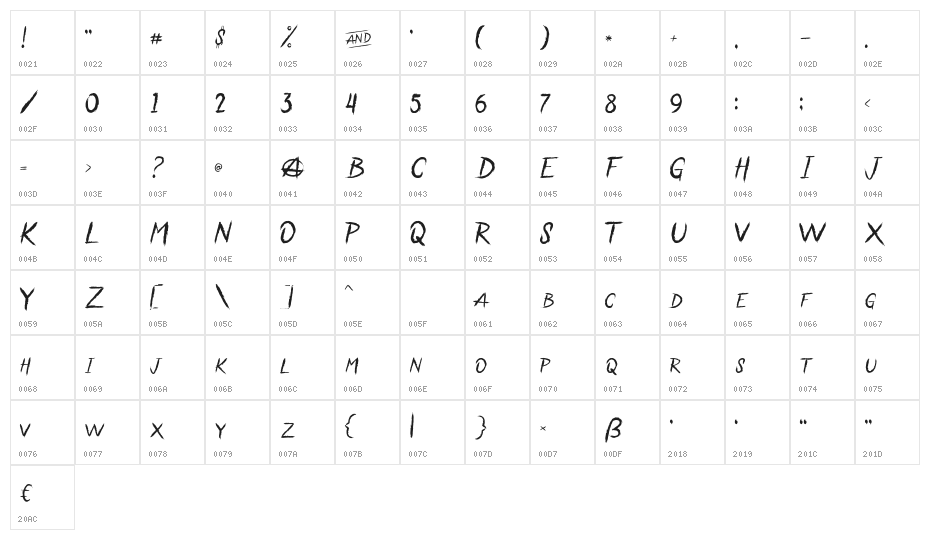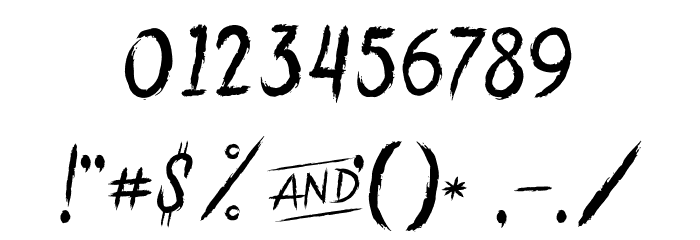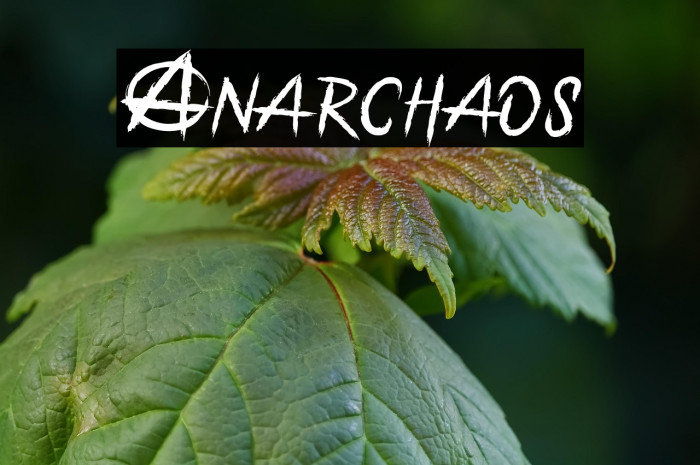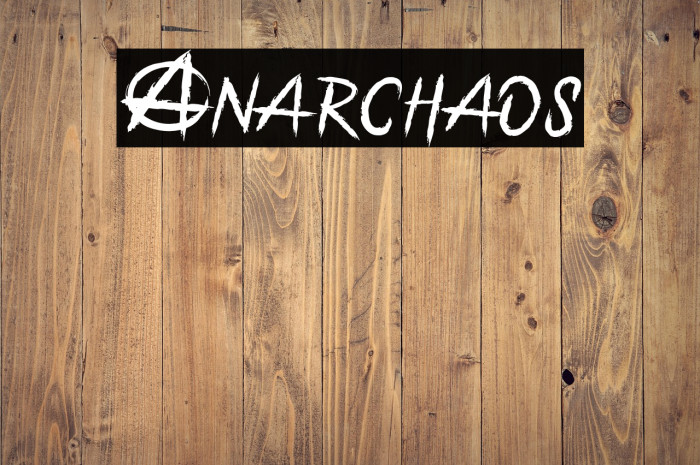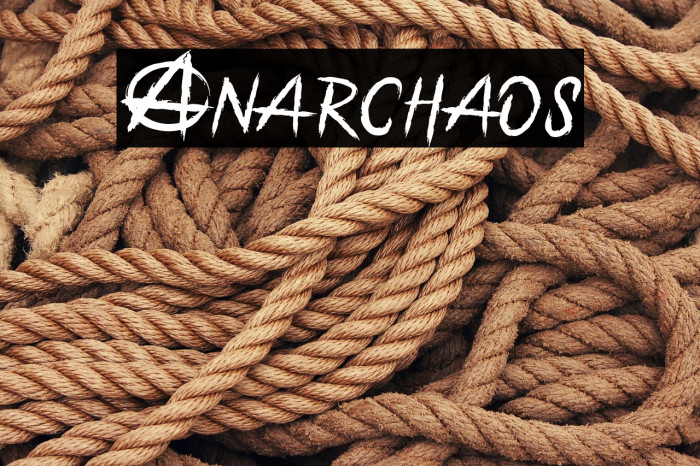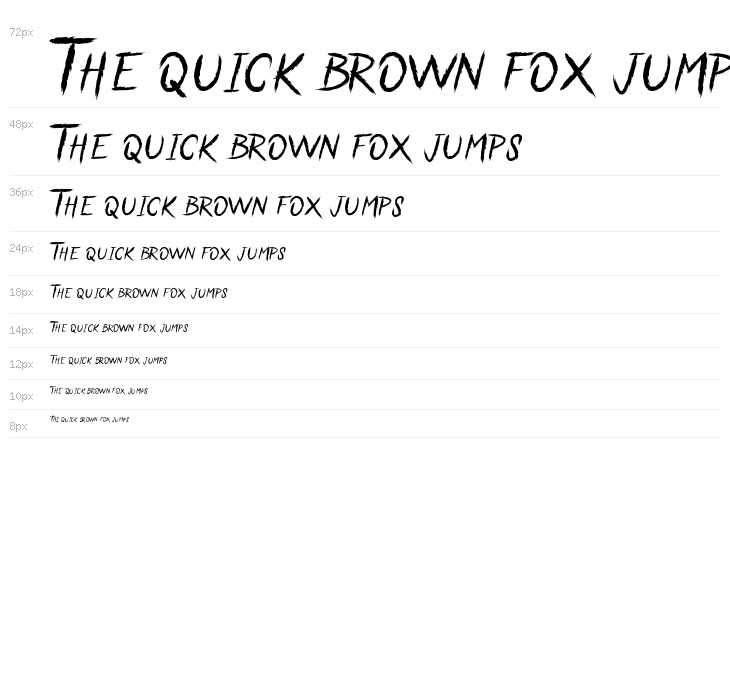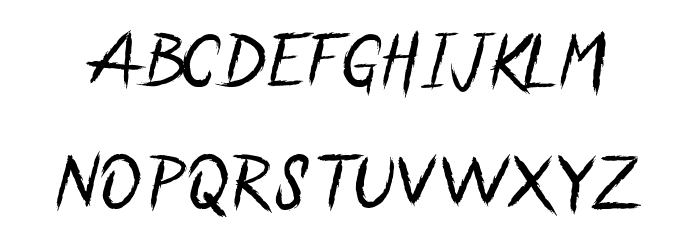
Anarchaos Font
Anarchaos Description
This font exudes a rebellious and edgy aesthetic, characterized by its rough, hand-drawn appearance. The letters are uneven and jagged, giving off a sense of chaos and movement. The uppercase and lowercase letters maintain a consistent style, with sharp angles and irregular strokes that suggest a sense of urgency and dynamism. The numbers and special characters follow the same design principles, ensuring a cohesive look across all elements. This font is ideal for projects that require a bold, unconventional statement, such as punk-themed designs, album covers, or protest posters. Its unique style captures attention and conveys a strong, defiant message.
| Overall Style | Edgy, Rebellious, Dynamic |
| Proposed Projects | Ideal for punk-themed designs, album covers, protest posters, and edgy branding. |